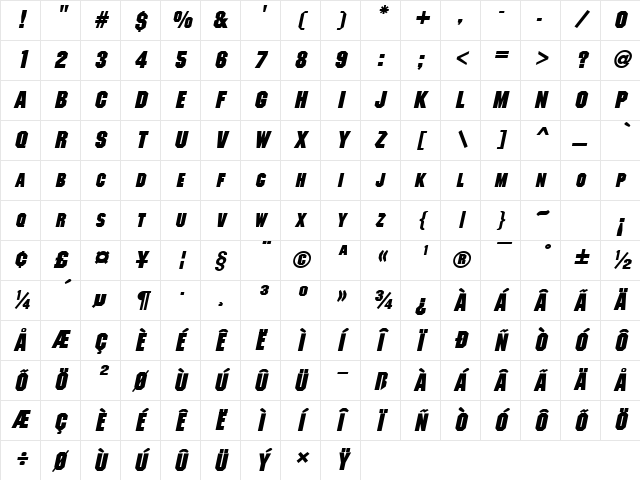
MetalEncasement BoldItalic
Design Context for MetalEncasement
MetalEncasement is a composed and adaptable typeface that performs quietly and consistently across a wide range of design contexts. The slanted form adds forward momentum and visual energy. Its bold stroke weight gives it real presence on the page.
Pro Tip: Use MetalEncasement for emphasis, pull quotes, and subheadings where its slanted energy can add rhythm to the layout.